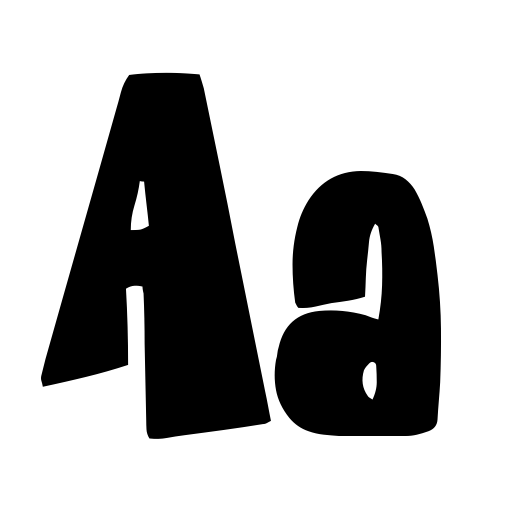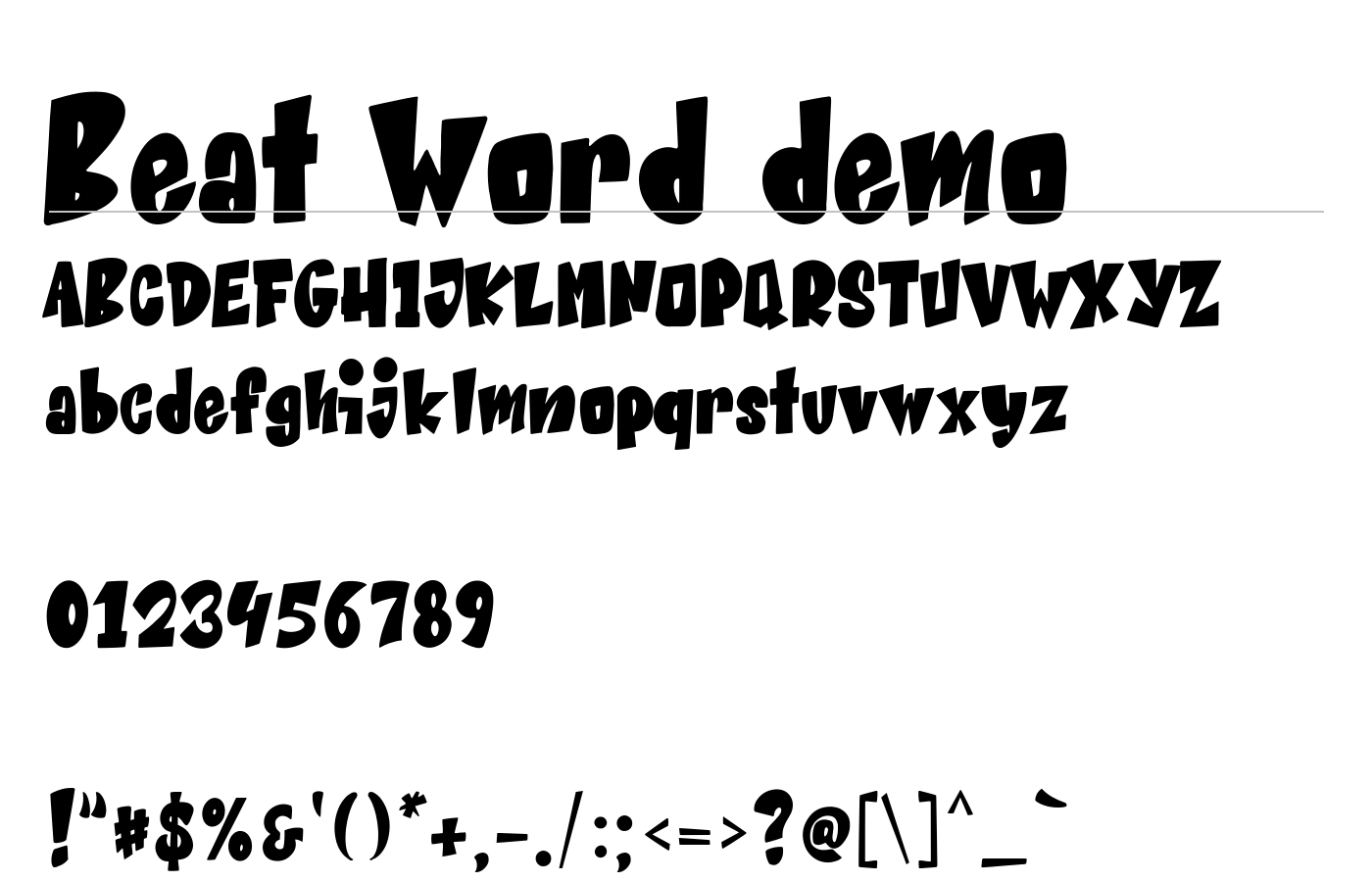
Beat Word demo is a bold, playful sans serif font with an energetic, hand-drawn feel. Its irregular shapes and varying stroke thicknesses give it a quirky, informal personality, making it ideal for eye-catching headlines, fun branding, or creative projects that want to convey a lively, approachable vibe. This font works well where a dynamic and friendly tone is desired, especially in posters, children’s materials, and casual marketing designs.
About Beat Word demo Font
| Designer | Degi Kurniawan |